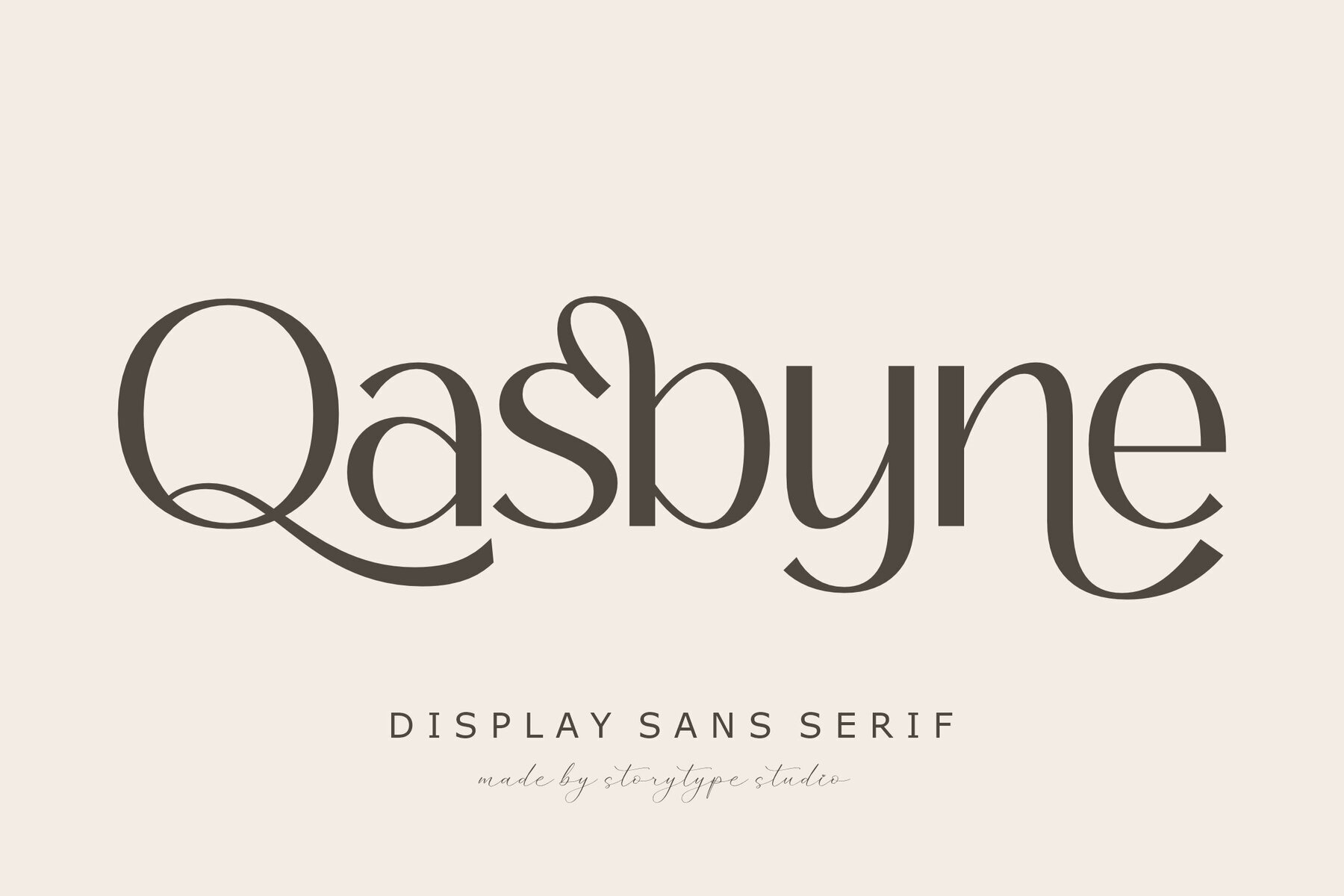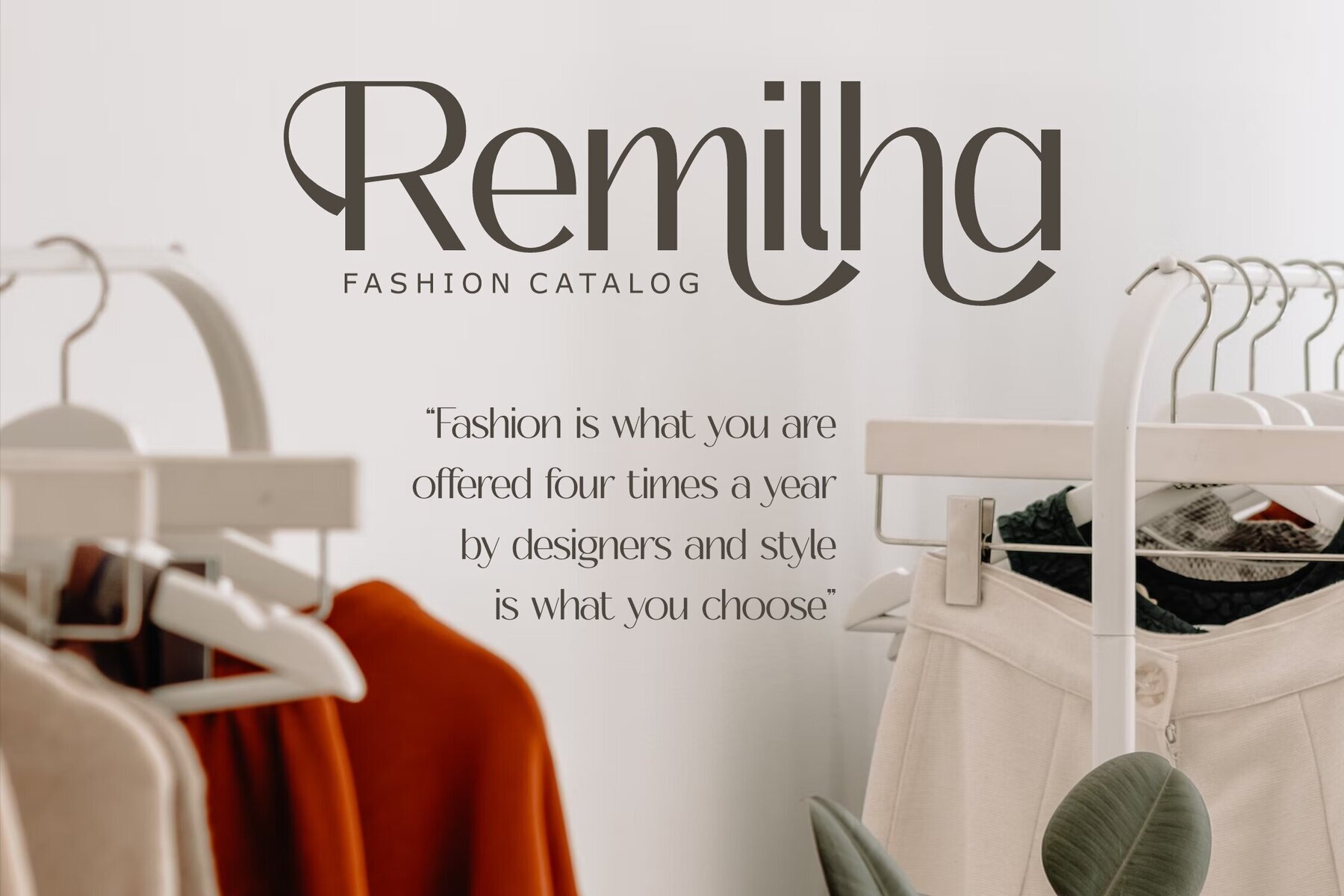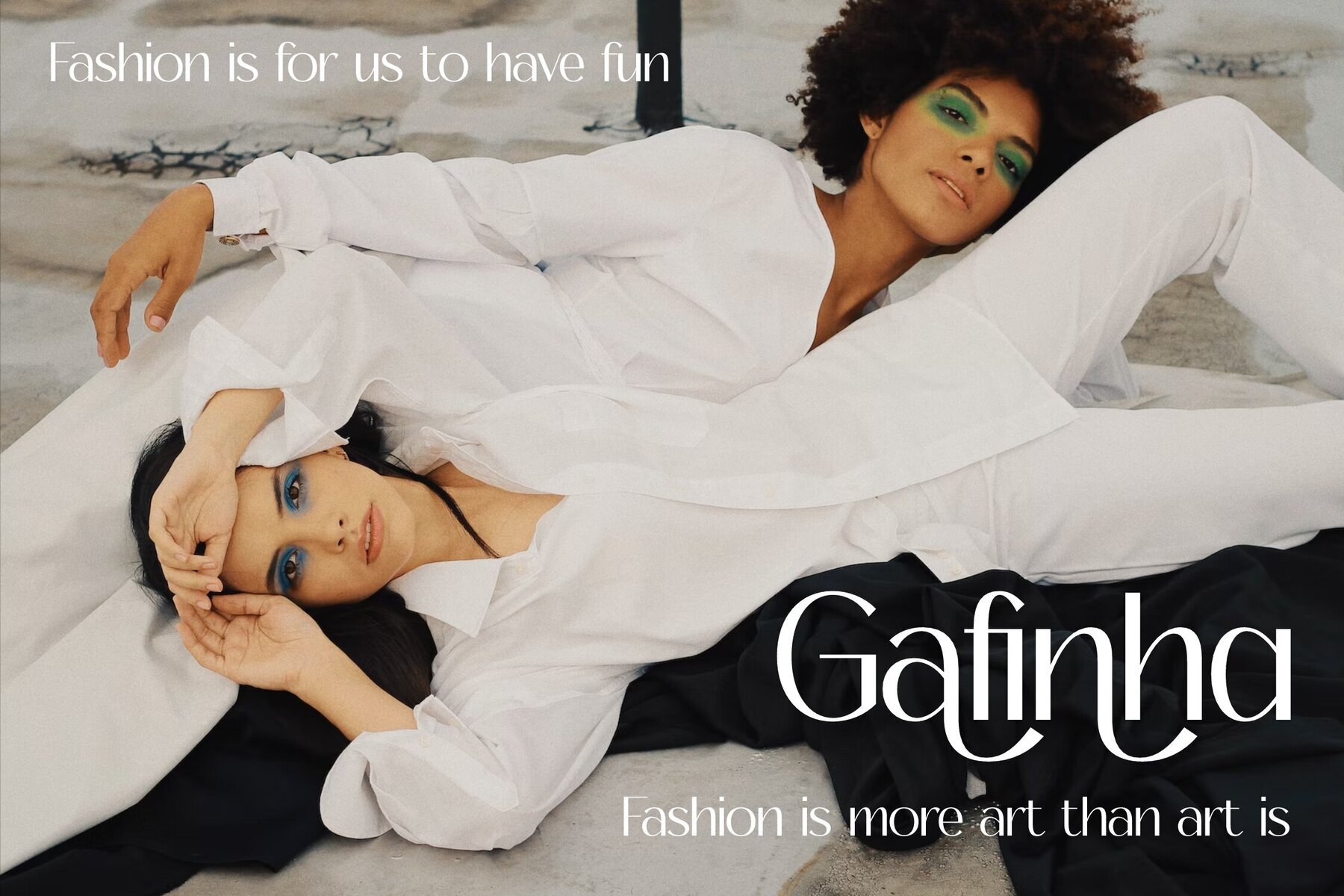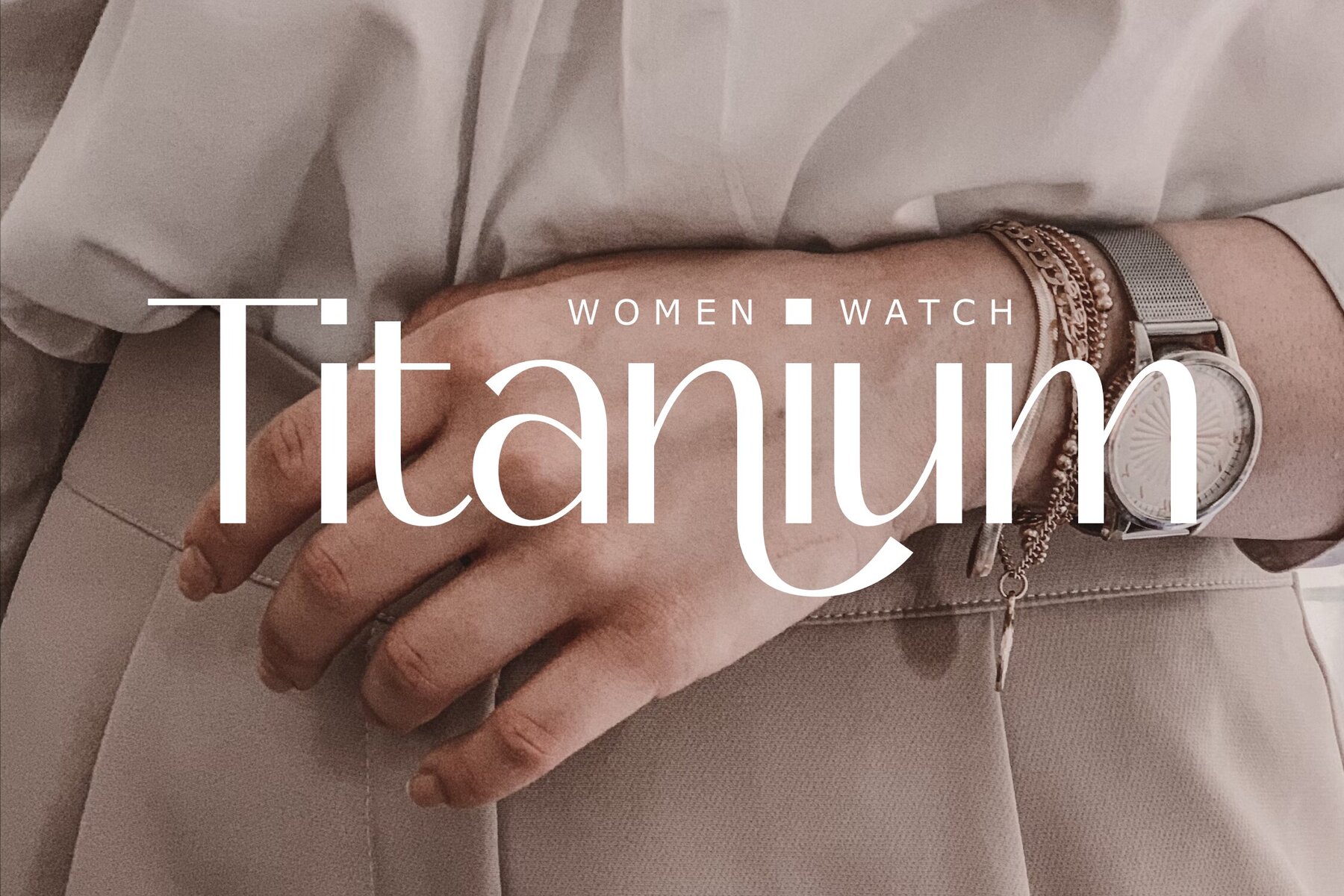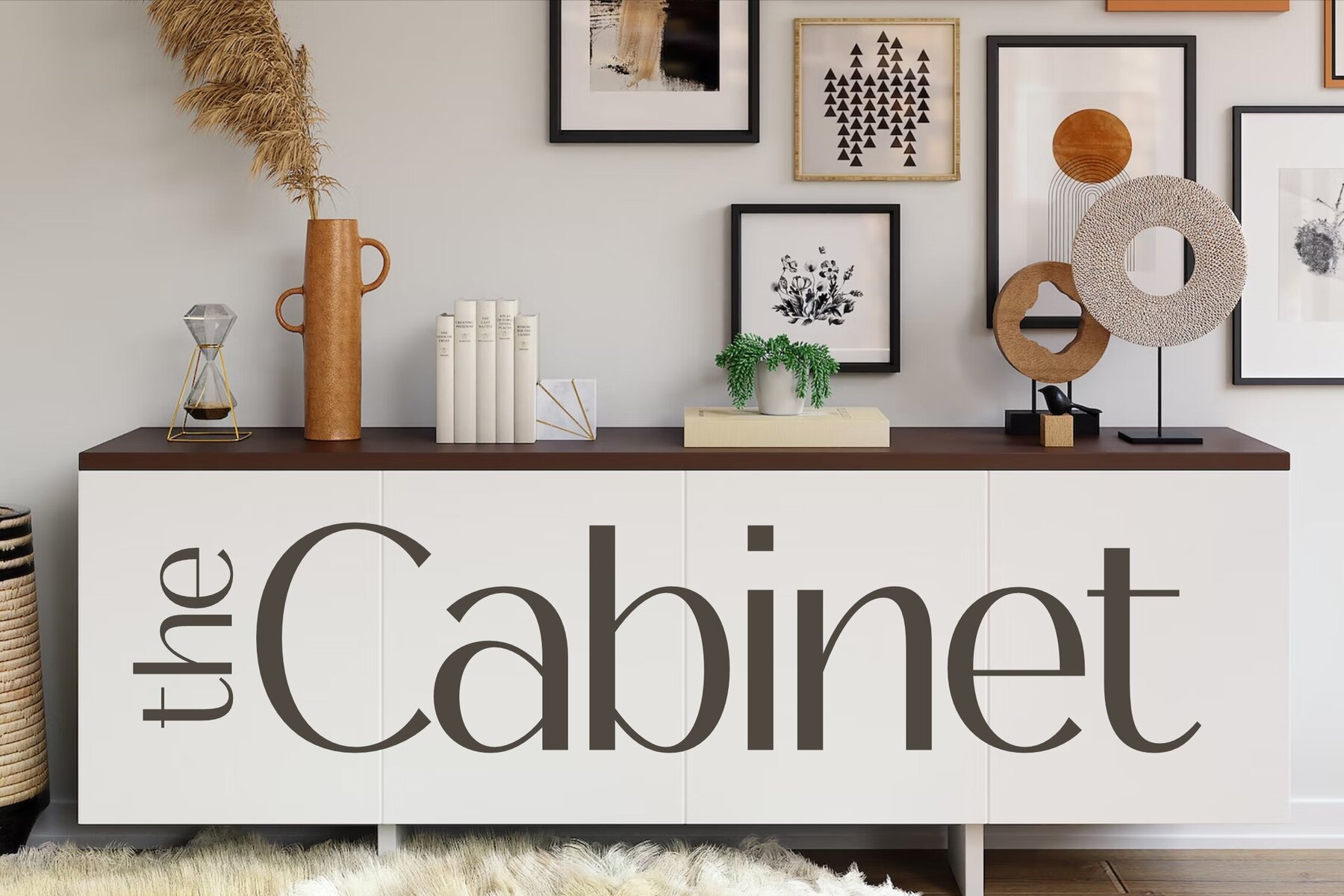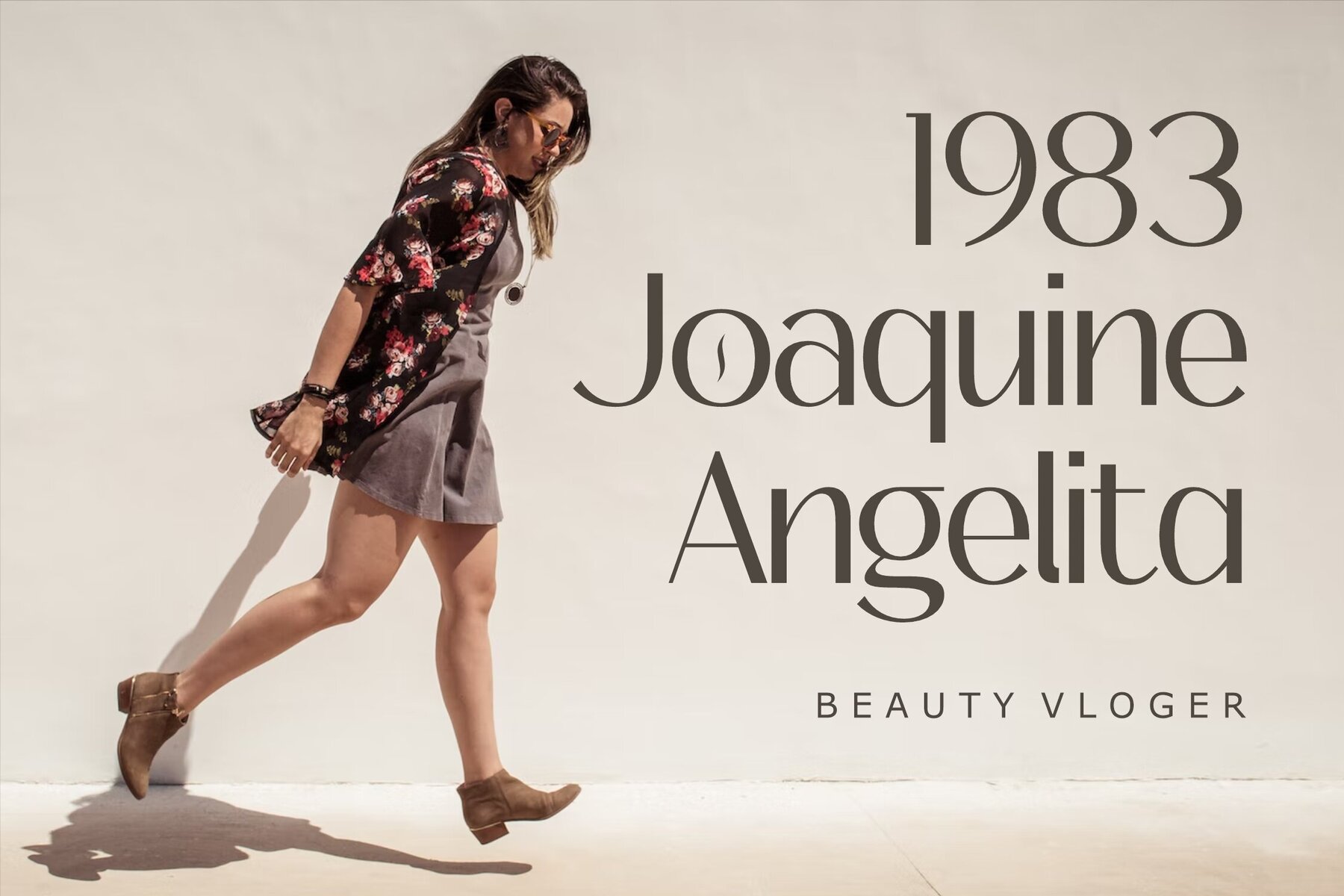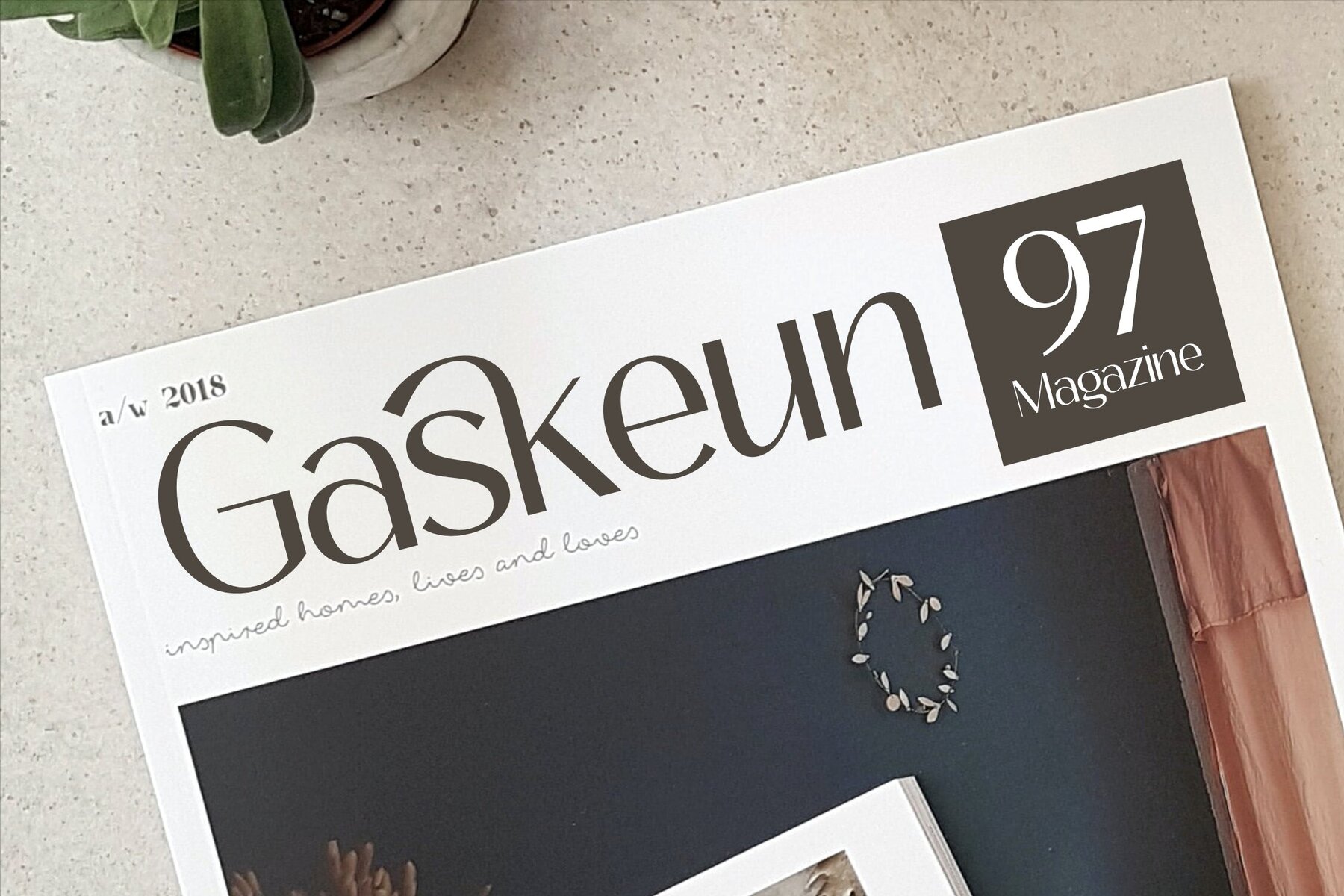
Qasbyne Font
The Qasbyne Typeface by Storytype Studio offers a blend of modern and classic serif design, embodying a unique style and contemporary look. Ideal for creating luxurious logos, captivating book and movie titles, chic fashion branding, and eye-catching magazine layouts, Qasbyne ensures your designs stand out.Qasbyne Typeface: A Touch of Elegance